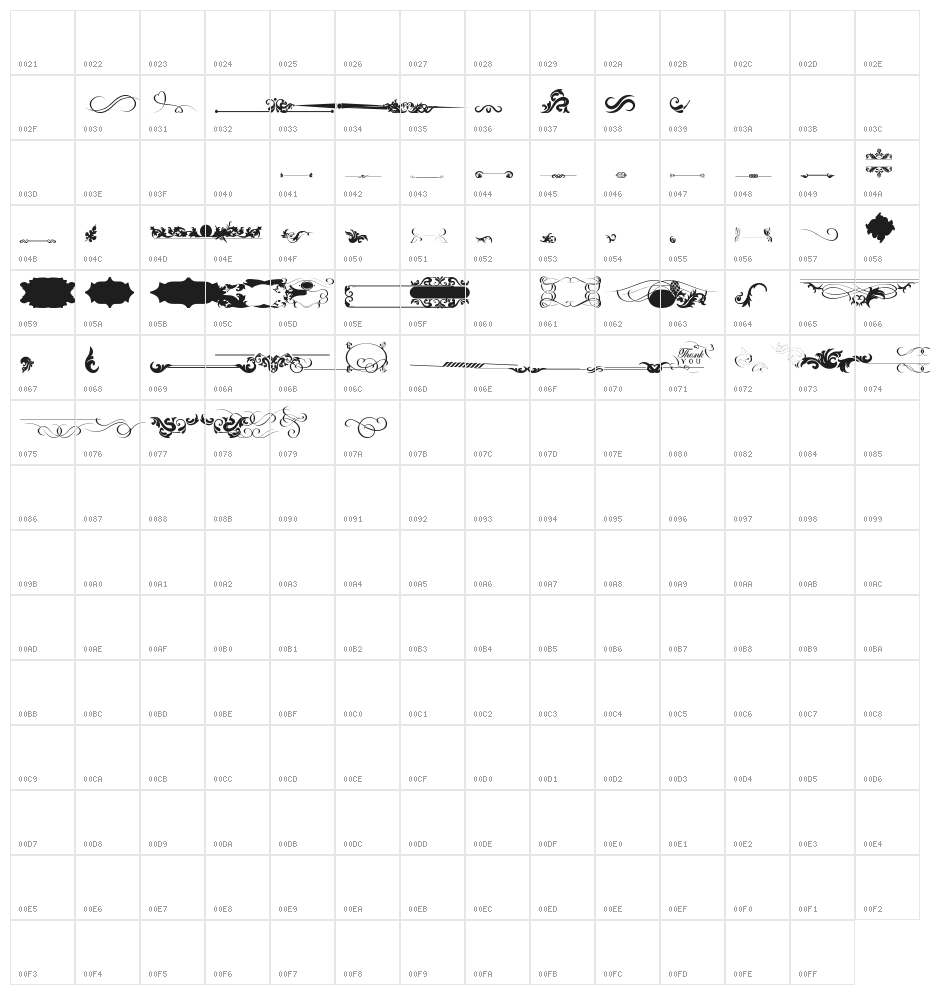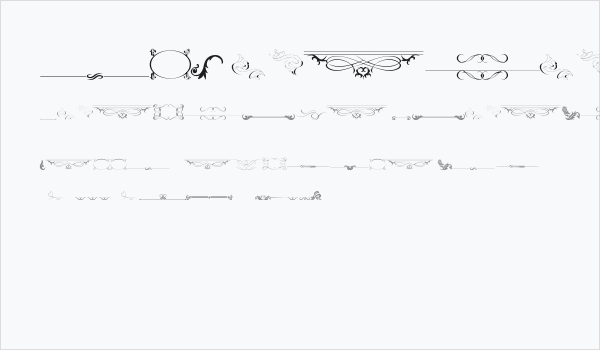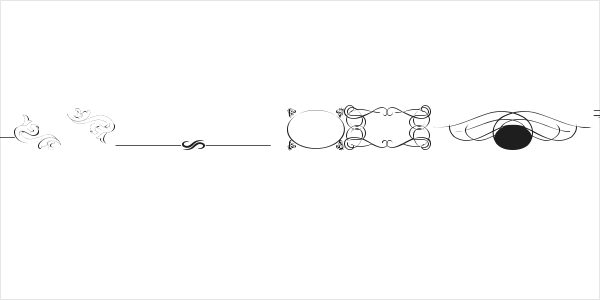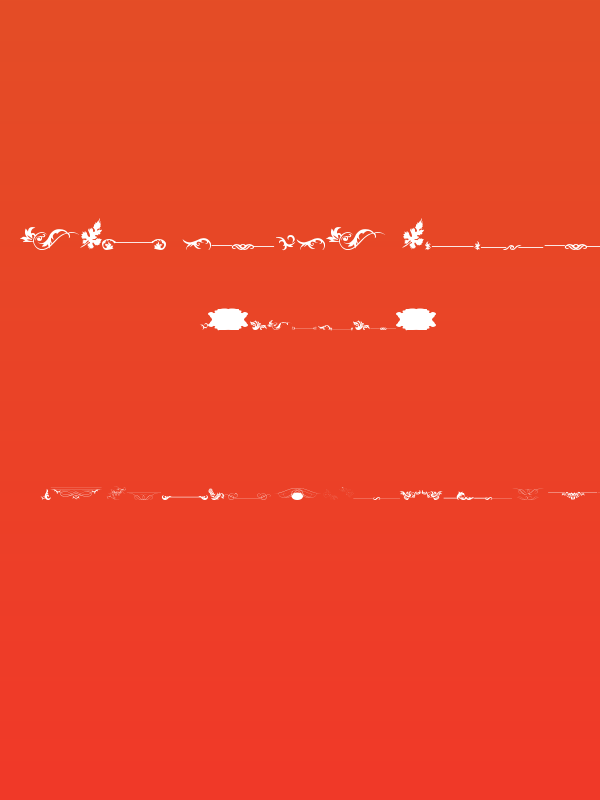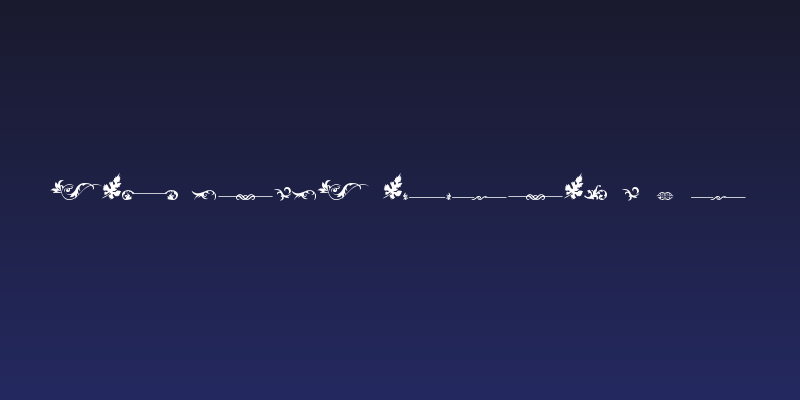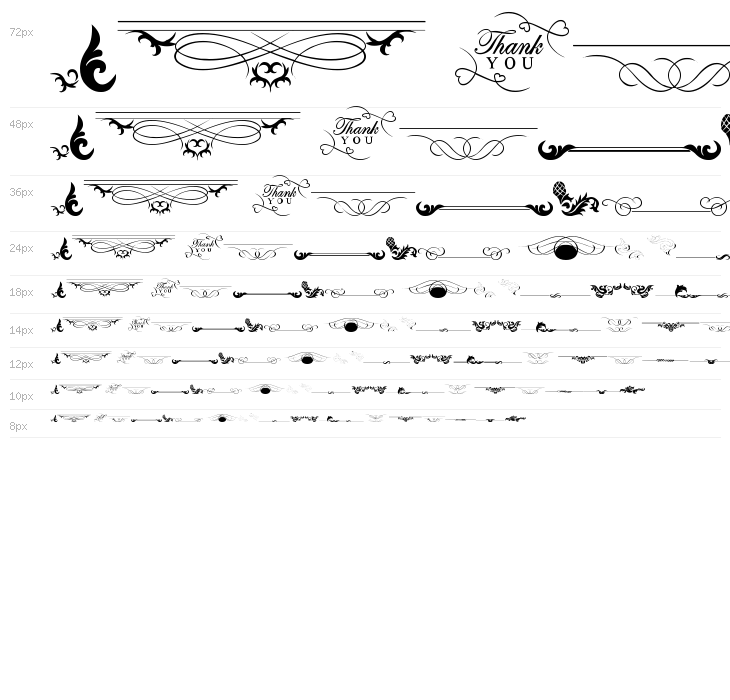
old retro labels tfb Font
old retro labels tfb Description
A collection of ornate, vintage-inspired decorative elements and label frames featuring intricate flourishes, swashes, and ornamental borders. The designs are highly detailed, with a mix of solid and outlined motifs, evoking a classic, old-fashioned aesthetic reminiscent of antique labels and signage.
| Overall Style | Vintage, Decorative |
| Use Case | Labels, Borders, Frames, Decorative accents |
| Proposed Projects | Packaging design, wedding invitations, certificates, vintage posters, branding for artisanal products, decorative borders for print and digital media. |